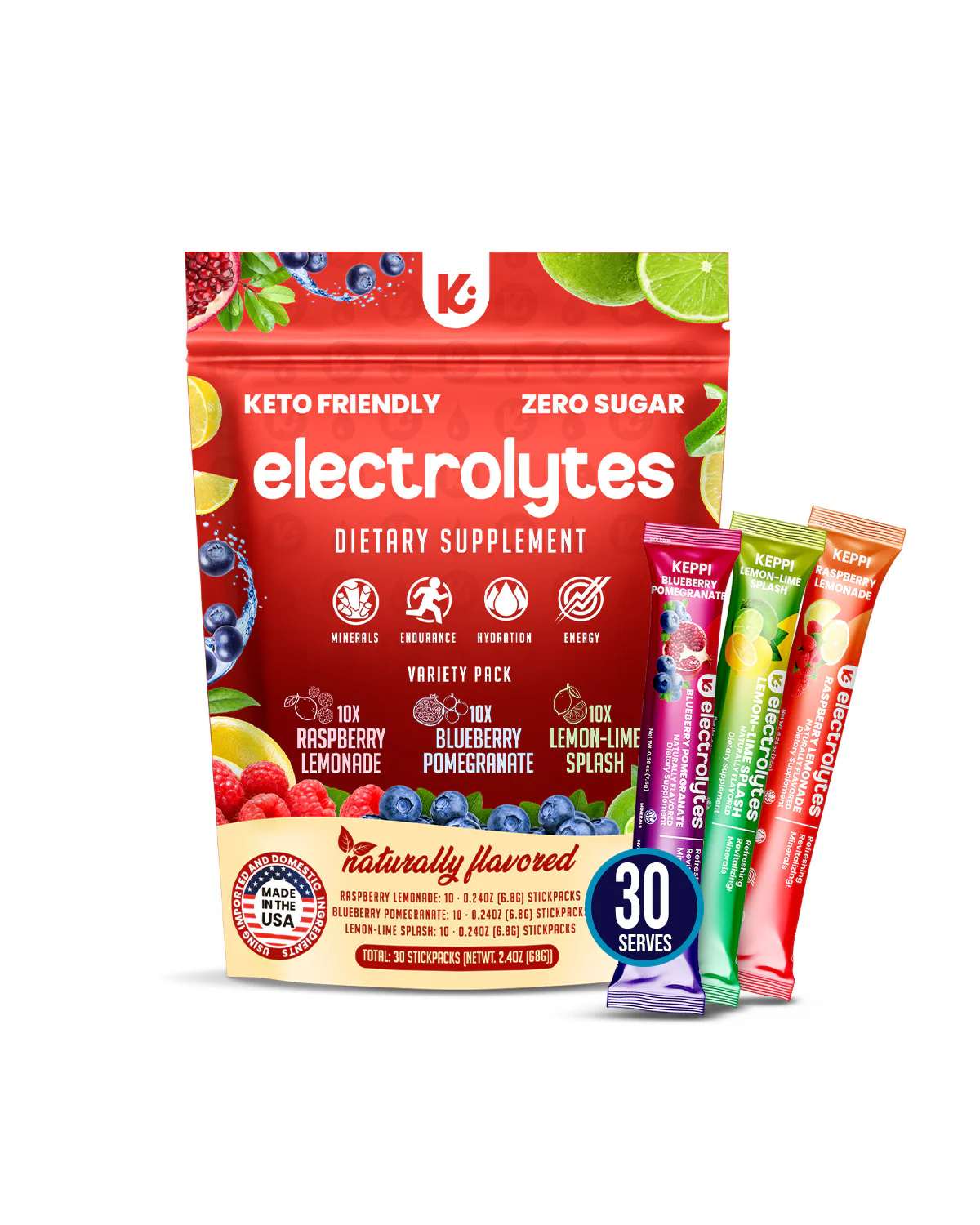
mareka
Raimont
When Merpati Film was preparing to release the family comedy film Ada Mertua Di Rumahku, they needed a design element that could reflect the warmth, humor, and distinctive character of the film. The Raimont Script font was chosen as the perfect choice to create an elegant touch and grab the audience’s attention from the first time they saw the title. Like a dramatic journey that connects the story to the audience’s heart, Raimont Script provides an unforgettable visual identity. If Merpati Film entrusted this grand design to Raimont Script, now is the time for you to give an extraordinary impression to your work with the same font.
The Aquatic font has been chosen as the main element for the branding of the popular game Get Bit, known among global gamers. With its unique design and strong characteristics, Aquatic has succeeded in presenting a captivating and authentic visual identity. The trust of a well-known brand like Get Bit is a testament to the exceptional quality of this font. It’s time for you to use Aquatic to bring the same uniqueness and appeal to your creative projects.
Aquatic
Goxac
When Red Bull, a world-class brand, held a major event, Red Bull Campus Clutch, for the global Valorant community, they needed a visual element that could reflect the spirit of competition and incredible energy. The Goxac font was chosen to be the face of this grand event, bringing a dynamic and bold impression that is in line with Red Bull’s identity. This success story is real proof of how Goxac can make a big impact in an iconic event. Now, it’s your turn to create an unforgettable visual story using the Goxac font.
The Bassun Arabic style font has been trusted as the main element in the title of the Loggin event on the popular channel Close The Door. The uniqueness and strength of this font character depict the event with a Middle Eastern theme.
This choice proves that the Bassun font can present a strong and characterful impression, suitable for the needs of captivating visuals. If a leading channel like Close The Door chooses the Bassun font, it’s time for you to use it to create an impressive design for your project.
Akute Font
Bleqcki Font – Serif Display has been trusted by Washington Plumbing & Drain, a leading brand, to strengthen its visual identity.
This trust is proof of the quality and excellence of the Bleqcki font in presenting a professional and classy appearance. If a big brand like Washington Plumbing & Drain chooses Bleqcki, now is the time for you to use it too to take your business branding to the next level.
Bleqcki
Imagine the famous brand Bolo King that always prioritizes quality. They chose Mixiwa Japanese as part of their identity because of its unmatched beauty and elegance.
By using Mixiwa Japanese, Bolo King was able to perfect their branding and win the trust of customers. Now, you can also give a professional and trustworthy touch to your project. It’s time for you to also apply Mixiwa Japanese in your project
Want to create an unforgettable work like Sorai’s ‘Semua Aku Dirayakan’ music video?
Bidena Script font has been a part of their success. With its elegance and uniqueness, this font can bring deep emotions to every design. It’s time for you to use this font with its exclusive license in twinletter and make your work also be in the spotlight.
Want your product, company, or event branding to have an Islamic and Middle Eastern feel?
Bassun Font is the answer! With its authentic Arabic style proven to be effective in enhancing visual appeal, Bassun Font has been used in amazing projects. Now, it’s your turn to create branding in your projects.
Betty Angela is a versatile font that is easy to adapt to various designs. As proven by Der Fredel – Frisch & Edel, this font will make it easier for you to create consistent and attractive branding. With this font, you don’t just get a font, more than that the impression that arises is a manifestation of brand identity.
Want your game to have visuals as iconic as “That Damn Goat”?
Thertole font used by RIT MAGIC Spell Studios creates a unique gaming world branding impression with the right space. Now, it’s your turn to create an epic branding perception in your gaming world with this dramatic and characterful display font.
Did you know that Keppi.co uses the Confirm font to create such an eye-catching look?
confirm
Bored with the same old poster designs?
Qafidut is the answer! With a modern and contemporary style, this font will make your poster the center of attention. Make your design even more hits and contemporary!
Safari font